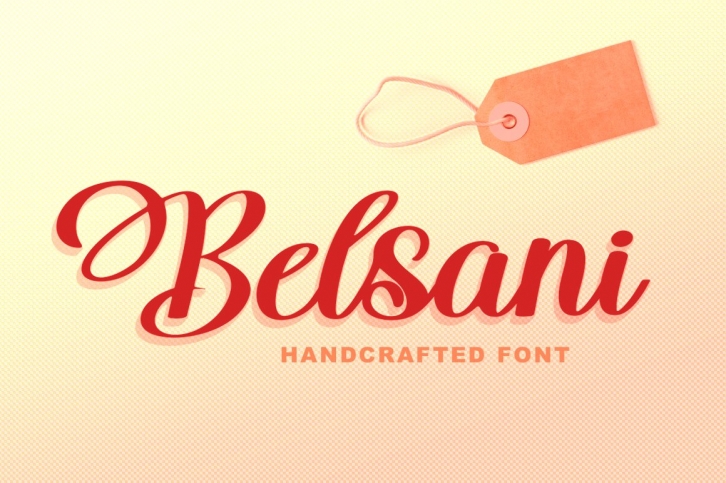
Belsani Script is a gorgeous font that was realeased on November 20, 2020. The font can be used in many style contexts and design environments. Perfect for invitations, magazines, websites, logos, and more! It was designed by Solidtype and the file size is 13.54 MB. Thanks for checking out this font!